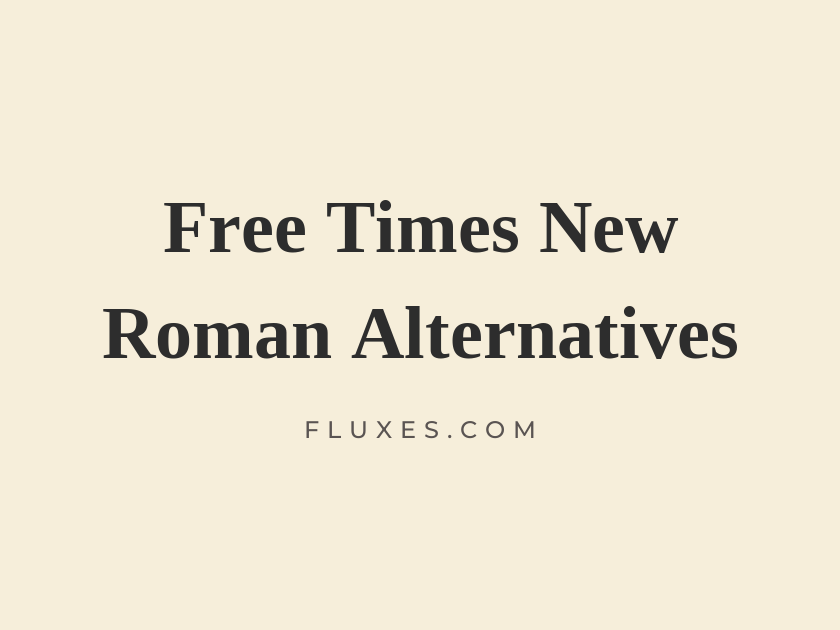
14 Best Free Fonts Alternatives to Times New Roman
Times New Roman has been the default choice for reports, resumes, manuscripts, and academic papers for so long that it barely registers as a design decision anymore. That familiarity is exactly the problem: it can make a document look like it was never designed at all, and the metrics that made it work brilliantly on a dot-matrix printer do not always hold up on a bright screen. If you are hunting for free serif fonts that carry the same authority and legibility without the default-document feel, Google Fonts has a genuinely strong bench of alternatives, from near-identical metric matches to more characterful serifs that still read as formal and trustworthy.
Tinos
Submitted for review and formal approval
Tinos
Tinos exists for one purpose: to be metrically compatible with Times New Roman, matching its line breaks and page counts almost exactly. If you are converting a legal brief, thesis, or old Word template and cannot risk reflowing text, this is the safest possible swap. It will not surprise anyone with personality, but that is precisely the point.
A clear, dependable voice for long reports
Designed in Russia as part of a public typeface program, PT Serif brings a slightly more generous x-height and rounder details than Times New Roman while keeping the same businesslike posture. It holds up well in dense paragraphs of body copy and performs admirably at small sizes on screen, which is where the original often gets muddy. Pair it with a grotesque sans for headings if you want a bit more contrast in a report or ebook.
Consistent formatting across every language
Noto Serif was built as part of Google’s massive effort to support every script on earth, so its greatest strength is quiet reliability across huge multilingual documents. The letterforms are sturdy and unfussy, closer to a workhorse than a stylist’s choice. Choose it when consistency across languages and platforms matters more than flair.
Precision typesetting for research and print
Adobe’s Source Serif 4 was drawn to complement Source Sans, and it shows in its calm, well-proportioned letterforms that feel more considered than Times New Roman without straying into decorative territory. It has real optical sizing built in, so headline and text settings each get their own tuned weight and spacing rather than one shape stretched to fit everything. That range makes it a favorite for academic papers, technical documentation, and editorial layouts that move between captions and body text.
Built to be read comfortably on screens
Merriweather was designed specifically for on-screen reading, with sturdy serifs and a slightly condensed structure that resists the blurring Times New Roman suffers on low-resolution displays. It carries more visual weight and warmth, so it feels less like a default and more like an actual typographic choice. This one is an easy recommendation anywhere the previous font felt too thin or clinical on a monitor.
Warm, contemporary type for essays and articles
Lora has moderate contrast and gentle curves that give it a slightly calligraphic feel, softer and friendlier than the rigid strokes of Times New Roman. It reads beautifully in long-form web articles, newsletters, and blog posts where you want a serif that feels current rather than institutional. At display sizes its curves get room to breathe, making it a nice choice for pull quotes too.
Classic elegance for print and manuscripts
Rooted in Claude Garamond’s Renaissance letterforms, EB Garamond trades the mechanical regularity of Times New Roman for old-style proportions and a more literary, humanist rhythm. It is a natural fit for novels, book interiors, and formal invitations where refinement matters more than raw density. Because its contrast is delicate, give it a slightly larger size than you would use for Times New Roman to keep it crisp at small text.
Scholarly text set with graceful proportions
Crimson Pro was modeled on old-style book faces in the tradition of Garamond, and it brings that same unhurried, scholarly rhythm to digital text. Its generous variable font range means you can dial in exactly the weight a dissertation, whitepaper, or long-form essay needs. It is a strong pick anywhere Times New Roman feels too flat and mechanical for the subject matter.
Trusted, traditional type for printed pages
Optimized specifically for on-screen body text, Libre Baskerville widens the letterforms and increases the x-height compared to the original Baskerville, giving it real presence at paragraph sizes. It carries the same air of tradition and trustworthiness that makes Times New Roman a default for formal writing, but with cleaner rendering on modern displays. Reports, cover letters, and blogs about serious subjects all suit it well.
Editorial type made for reading online
Spectral was commissioned as a screen-first serif for long-form reading interfaces, and it shows in its open counters and steady, unhurried rhythm across paragraphs. It has a slightly literary, editorial character that suits online magazines and think pieces more than corporate memos. If Times New Roman feels too utilitarian for a personal essay or feature article, Spectral is a natural upgrade.
Times New Roman earned its place through sheer ubiquity, but ubiquity is not the same as good typography for every project. Any of these free alternatives can carry the same seriousness and legibility while giving your document, article, or website a voice that feels intentional rather than default.